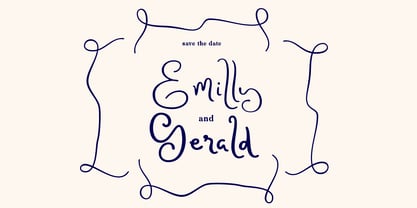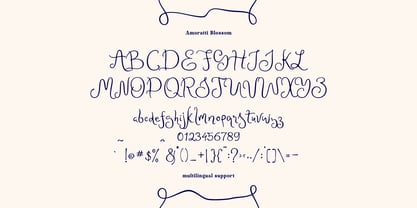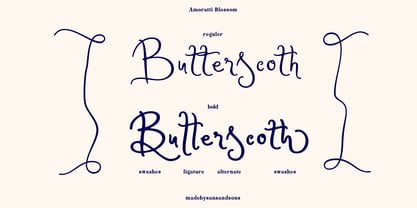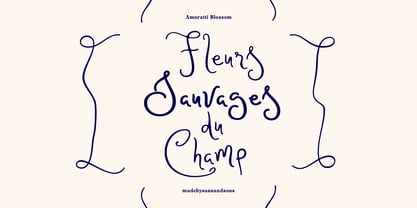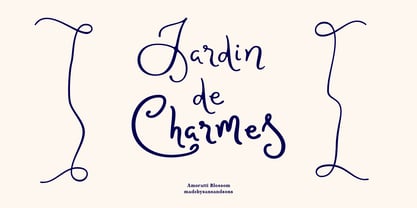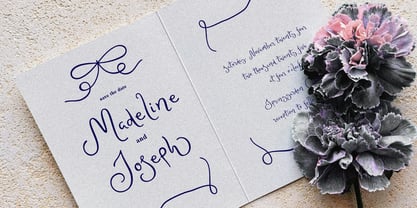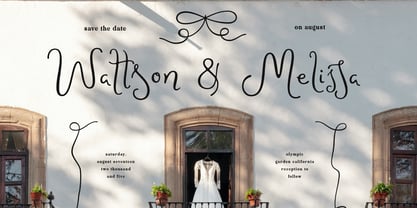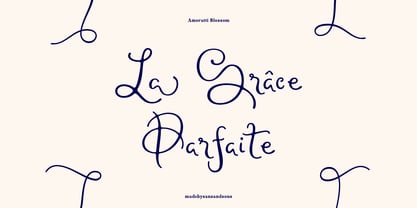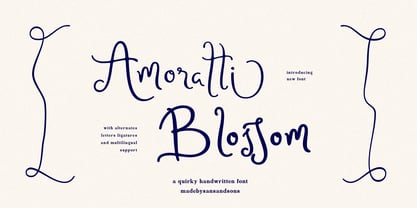
Amoratti Blossom
by Sans And Sons
The Amoratti Blossom Font Family was designed by Angga Suwista and published by Sans And Sons. Amoratti Blossom contains 2 styles and family package options. More about this family
"Meet Amoratti Blossom – the perfect blend of whimsical charm and quirky elegance! This script font is designed to make your projects stand out, whether it’s for wedding invites, creative branding, or any design that needs a sprinkle of magic. It’s classy, it’s fun, and it’s ready to bring your ideas to life!"
Designers: Angga Suwista
Foundry: Sans And Sons